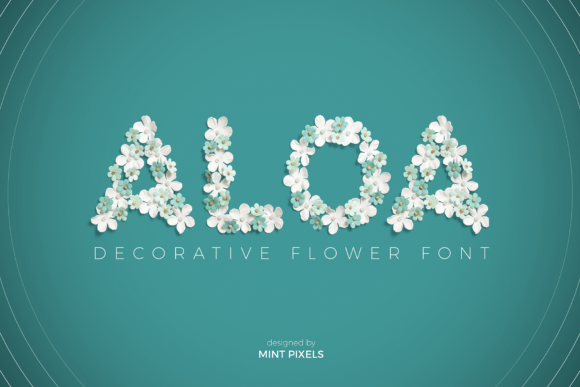
Discover the beauty of nature in your designs with Aloa Font, the best font for exam paper. This colorful font is designed by Mint Pixels to give your projects a touch of elegance and creativity. Aloa Font is perfect for headings and will add a touch of beauty to your designs, making them stand out from the crowd.
Aloa Font is a bitmap-type decorative font that features flowers, making it a perfect fit for wedding invitations, product design, illustrations, decorations, crafts, and more. Its unique style and charming appearance will help your designs capture the attention of your audience, making them memorable and captivating.
With Aloa Font, you'll get the perfect combination of nature-inspired design and practicality. Its versatile design and high-quality characters make it an excellent choice for any project, big or small. Whether you're creating a wedding invitation, designing a product label, or illustrating a book, Aloa Font is the perfect choice.
In summary, Aloa Font is a must-have for anyone looking to add a touch of nature-inspired design to their projects. With its unique style, high-quality characters, and versatile design, Aloa Font is the perfect choice for anyone looking to elevate their designs and captivate their audience.